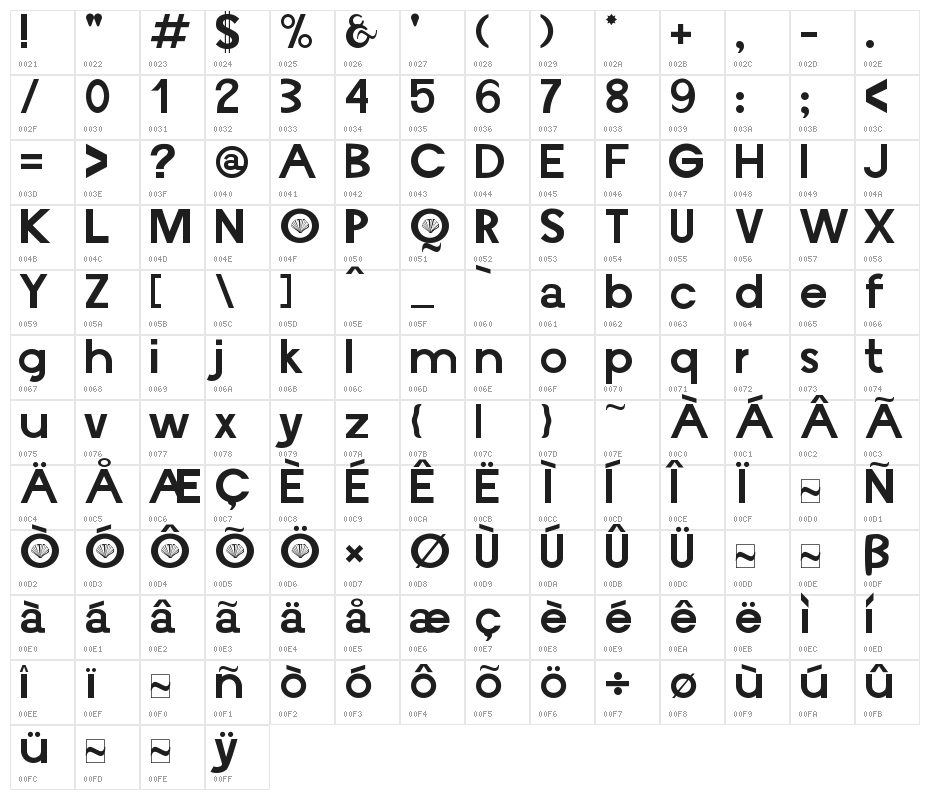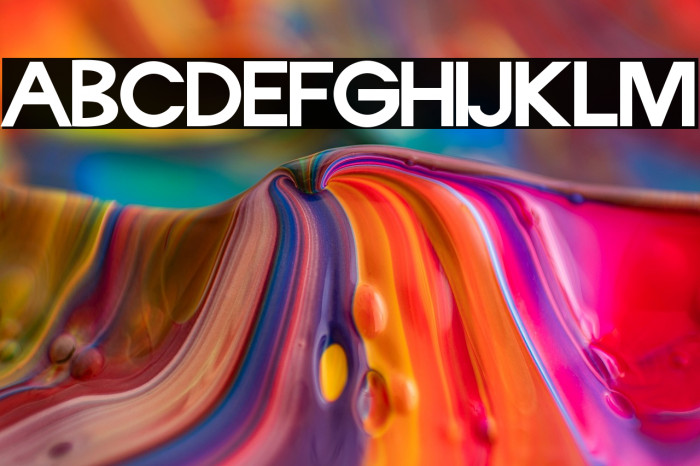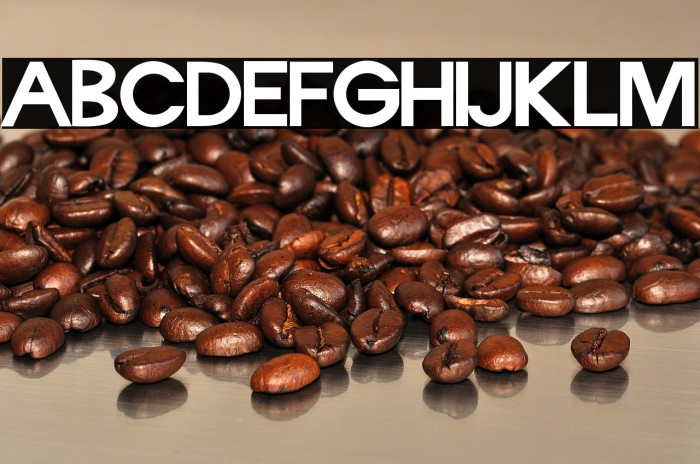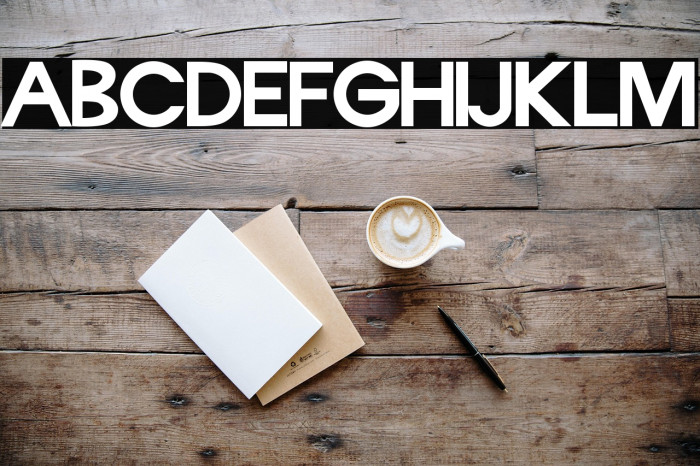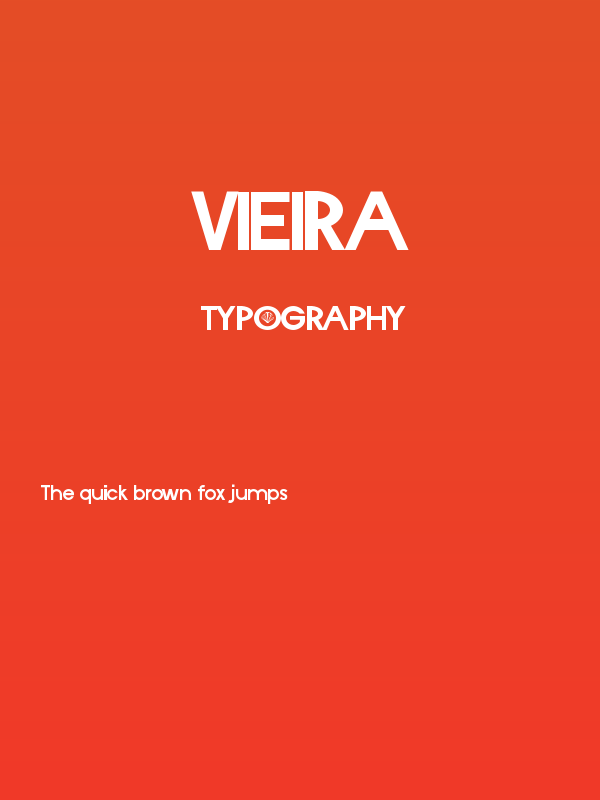
Vieira Font
Vieira Description
This font features a bold and modern sans-serif style with clean, geometric lines. The characters are well-proportioned, offering a harmonious balance between width and height. The uppercase letters are strong and impactful, while the lowercase letters maintain a consistent flow. The numerals are clear and easily readable, making them suitable for various applications. Special characters are distinct and maintain the overall aesthetic of the font. The design is versatile, suitable for both digital and print media, and can be used in a variety of contexts from branding to editorial design.
| Proposed Projects | Ideal for branding, advertising, editorial design, and digital media. |